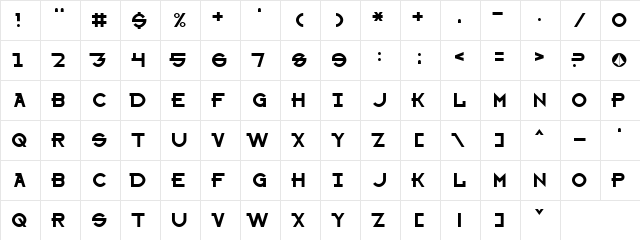
Sharon Apple Normal
Design Context for Sharon Apple Typeface
Sharon Apple offers clean, dependable letterforms without strong stylistic allegiance, making it a practical choice for designers who need flexibility.